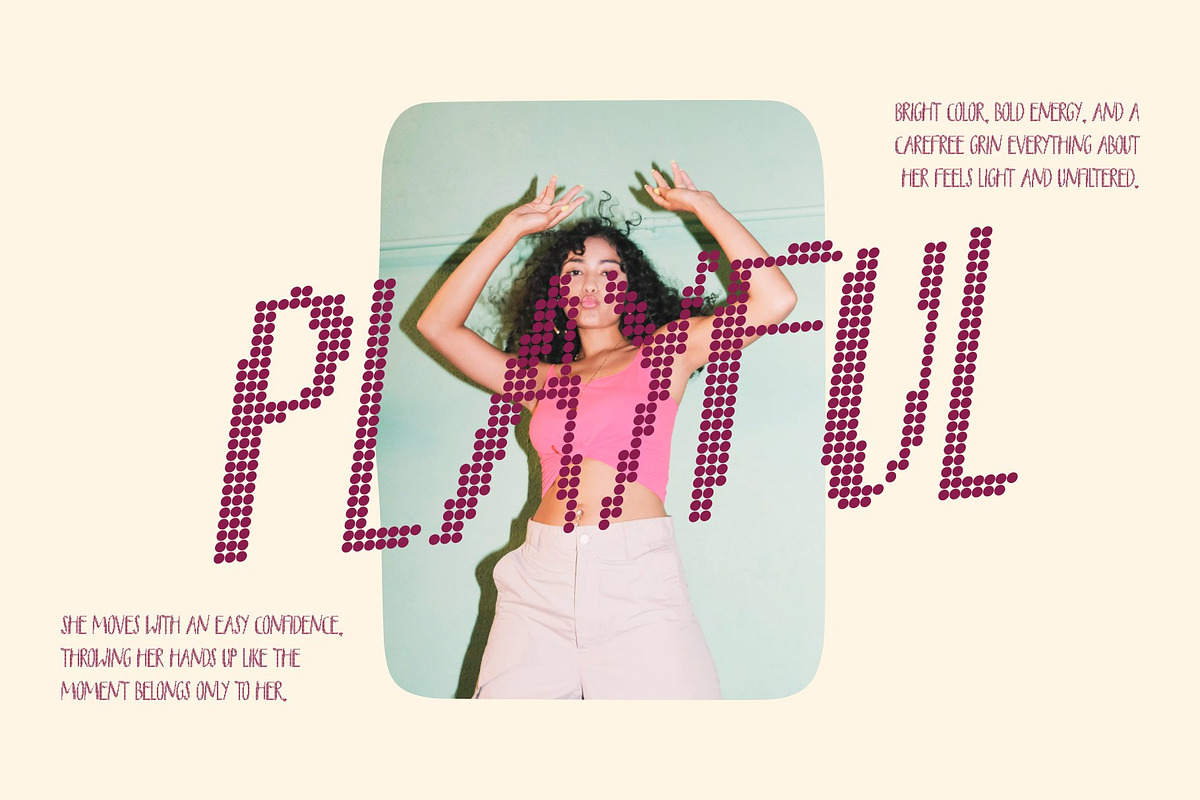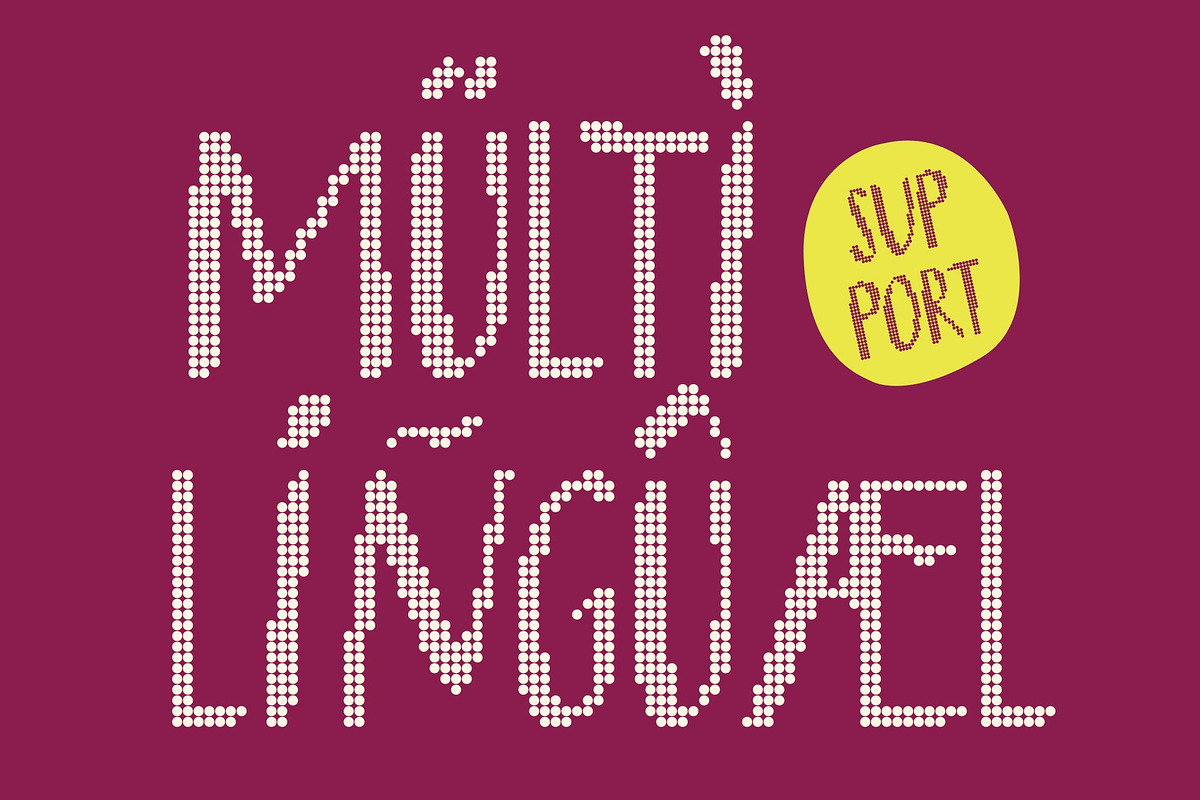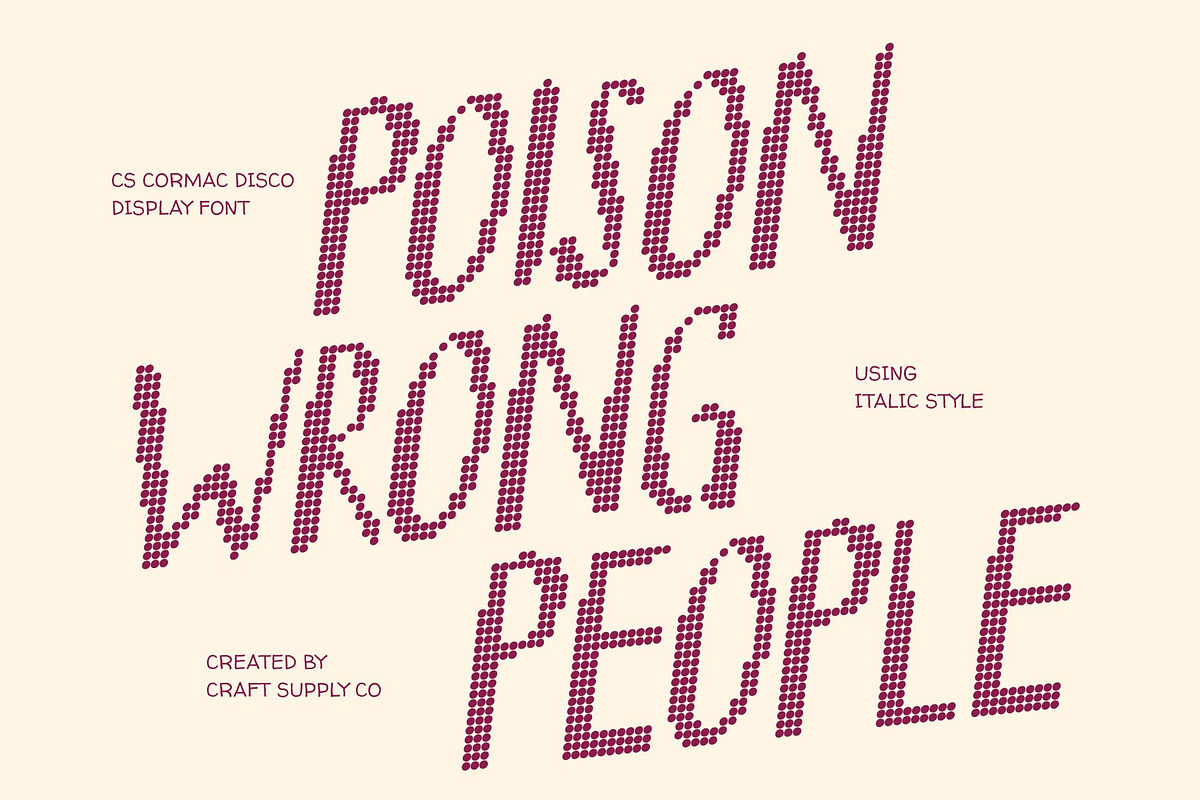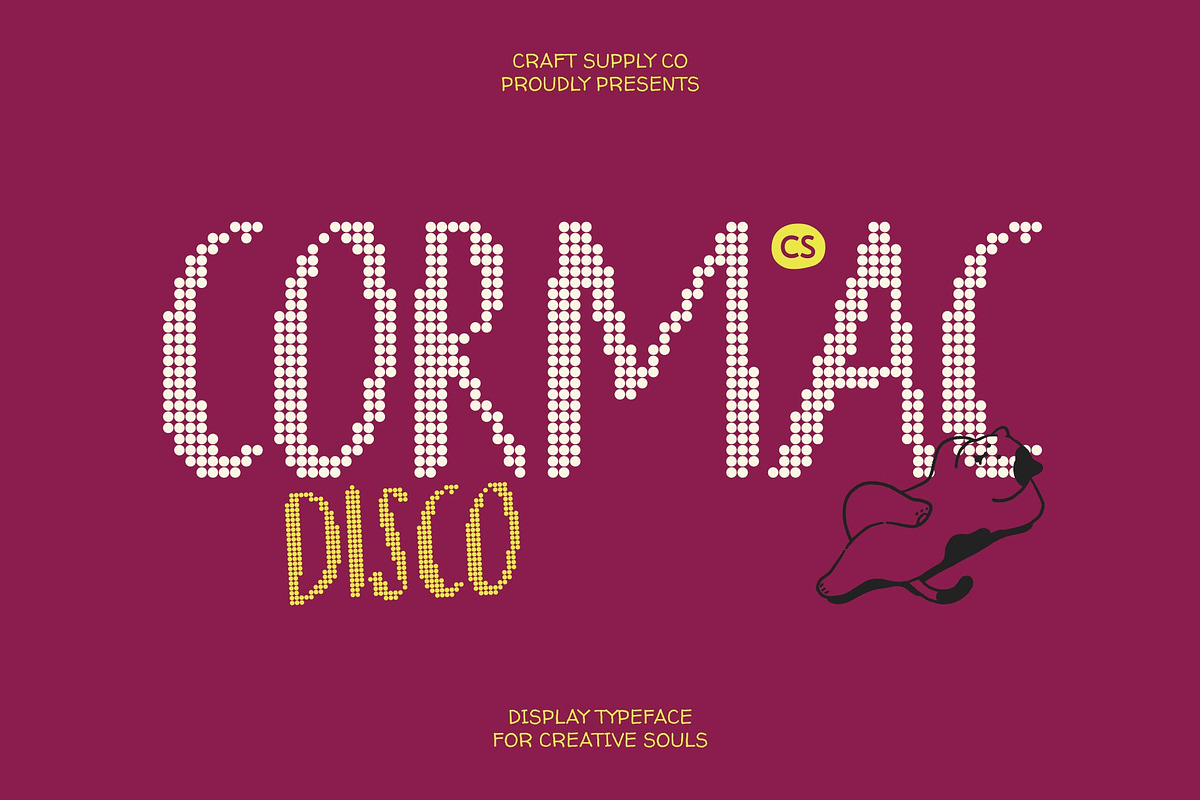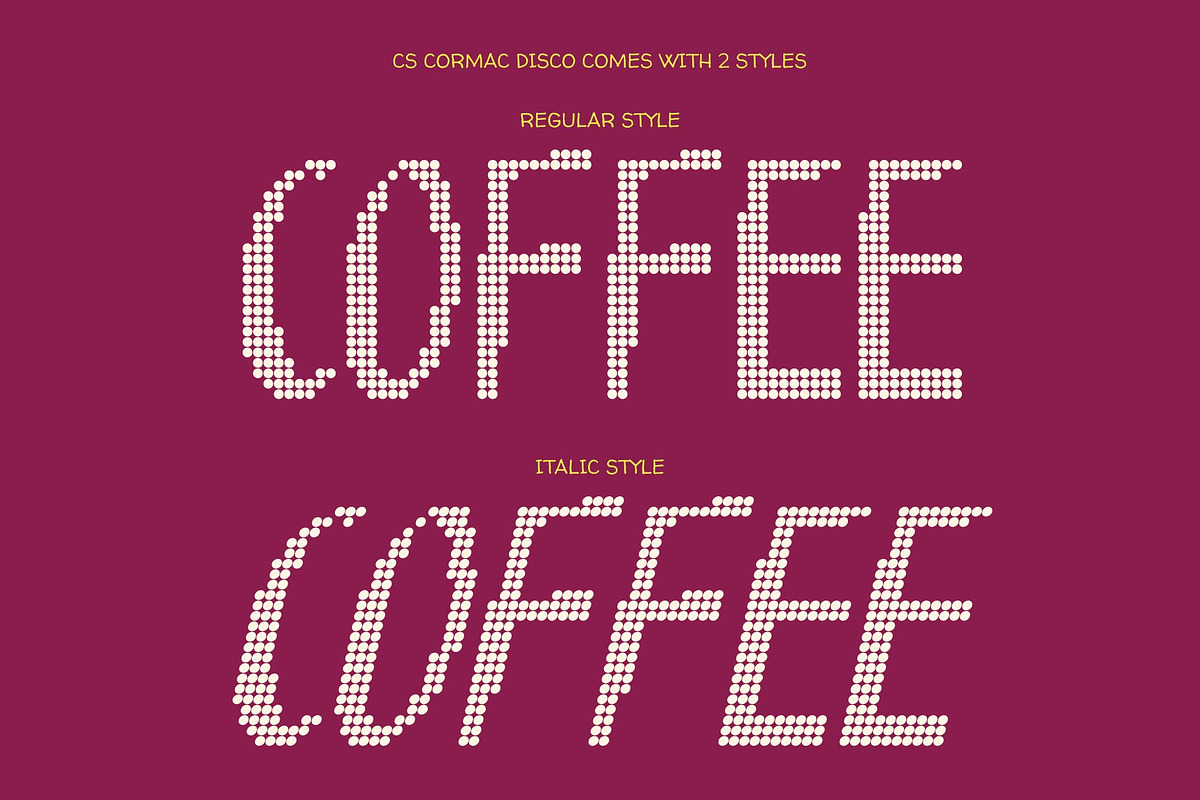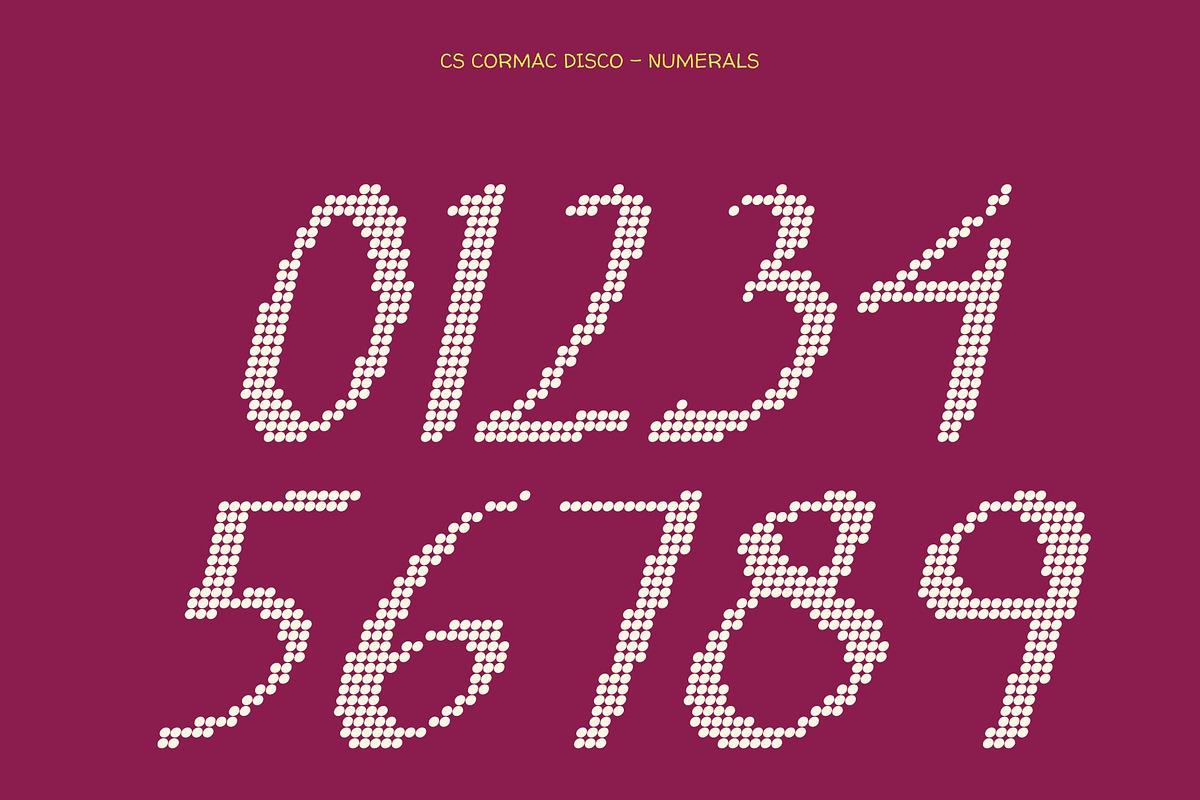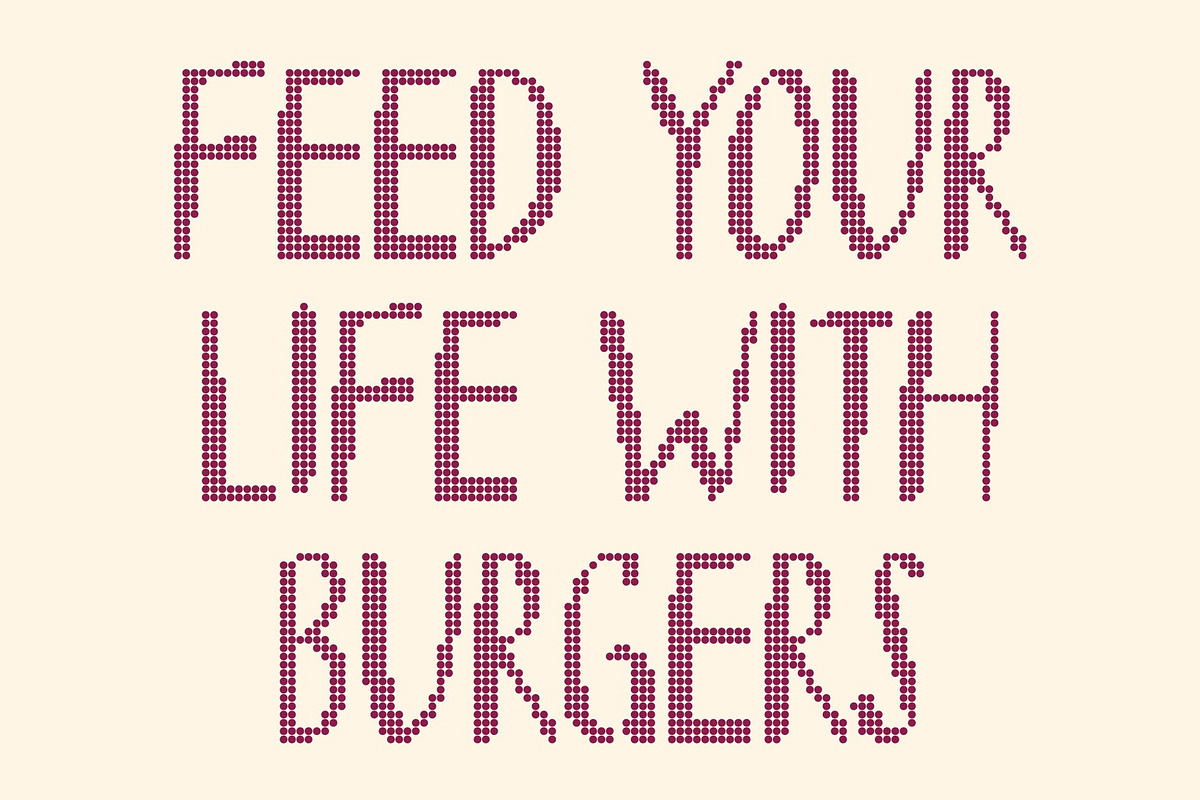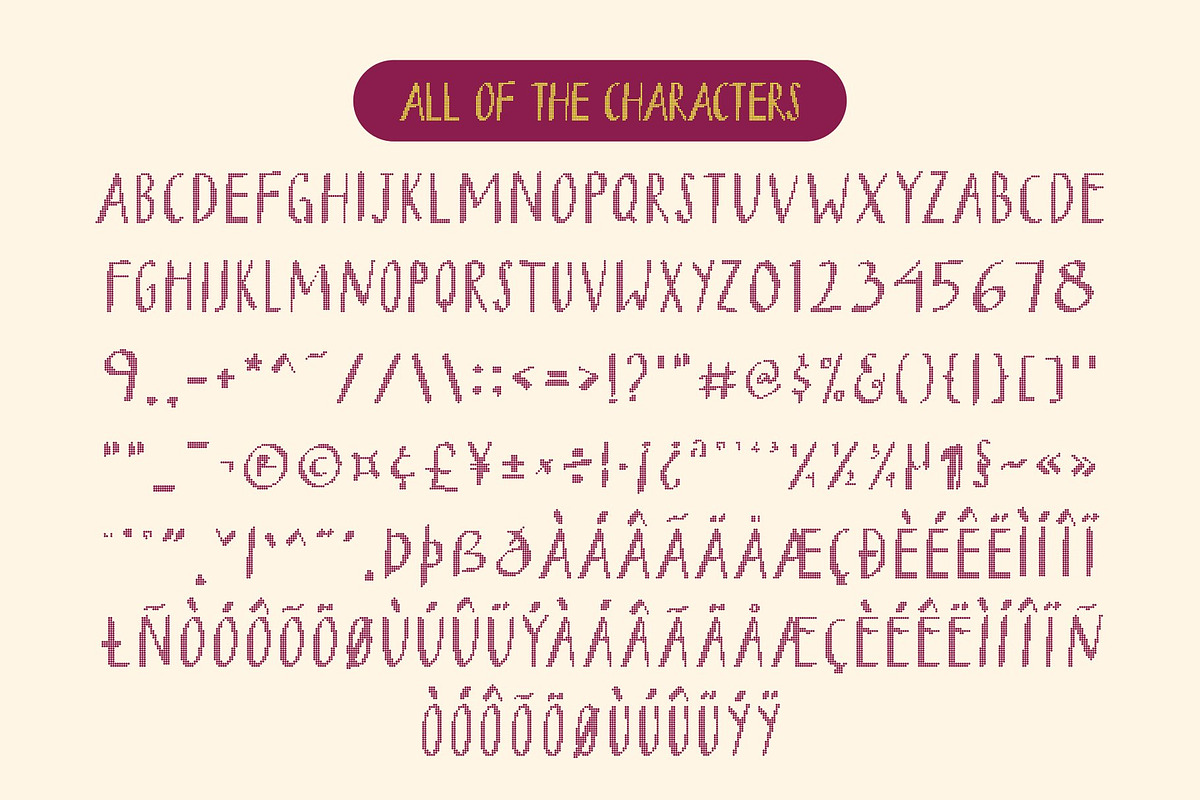
CS Cormac Disco
CS Cormac Disco – Marker Flow with Sparkling Disco Energy
Slim Structure with Disco Glow This transforms its marker-style sans serif elegance into a radiant dotted display inspired by lively disco lights. The long, slim letterforms retain their effortless handwritten flow, while shimmering dot details add a vibrant glow that makes every word feel energetic and celebratory.
Handwritten Texture with Luminous Rhythm The natural marker texture is enhanced by disco-inspired dotted construction, creating a playful interplay between organic strokes and sparkling highlights. Each character feels alive with motion, as if illuminated by rhythmic lights across a dance floor, bringing personality and visual excitement to the typography.
Modern Balance with Expressive Sparkle This font keeps the balance between structured clarity and expressive spontaneity. The slender proportions ensure readability and elegance, while the glowing dotted style introduces a cheerful, dynamic atmosphere perfect for contemporary creative work.
Perfect for Editorial, Branding, and Festive Design Ideal for editorials, digital branding, event promotions, and creative social media graphics, this font adds warmth and vibrancy to any layout. Its combination of modern flow and sparkling personality makes it perfect for designs that want to feel stylish, lively, and unforgettable.
CS Cormac Disco Regular
CS Cormac Disco Italic